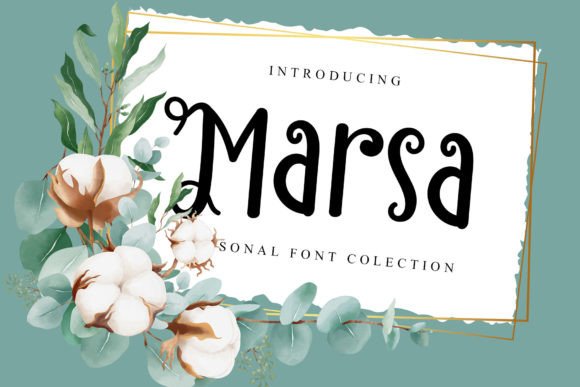
Dive into the world of Marsa, a resplendent script font that dances across the digital canvas with grace and charm. Its captivating strokes, meticulously crafted by the skilled artisans at giartstudios, evoke a sense of timeless elegance that transcends the boundaries of ordinary typefaces.
With Marsa, your creative projects will blossom into masterpieces. Its versatility knows no bounds, whether you're crafting enchanting logotypes, forging unforgettable corporate identities, or breathing life into your apparel designs. Unleash your imagination and watch as Marsa transforms your concepts into captivating visual symphonies.
Picture the allure of Marsa's letters adorning your holiday cards, each stroke a delicate brushstroke that dances with festive cheer. Your greetings will radiate warmth and charm, leaving a lasting impression on the hearts of your loved ones.
Beyond its aesthetic appeal, Marsa boasts a wealth of practical features that make it a joy to use. Its varied baseline, reminiscent of natural handwriting, adds a touch of authenticity and realism to your designs. The font's carefully considered kerning ensures harmonious spacing, while its extensive language support opens up a world of creative possibilities.
Marsa is not just a font; it's an invitation to embark on a creative odyssey, to explore the depths of your imagination and manifest your artistic vision. Its versatility and elegance will elevate your projects to new heights, captivating your audience with its timeless allure.